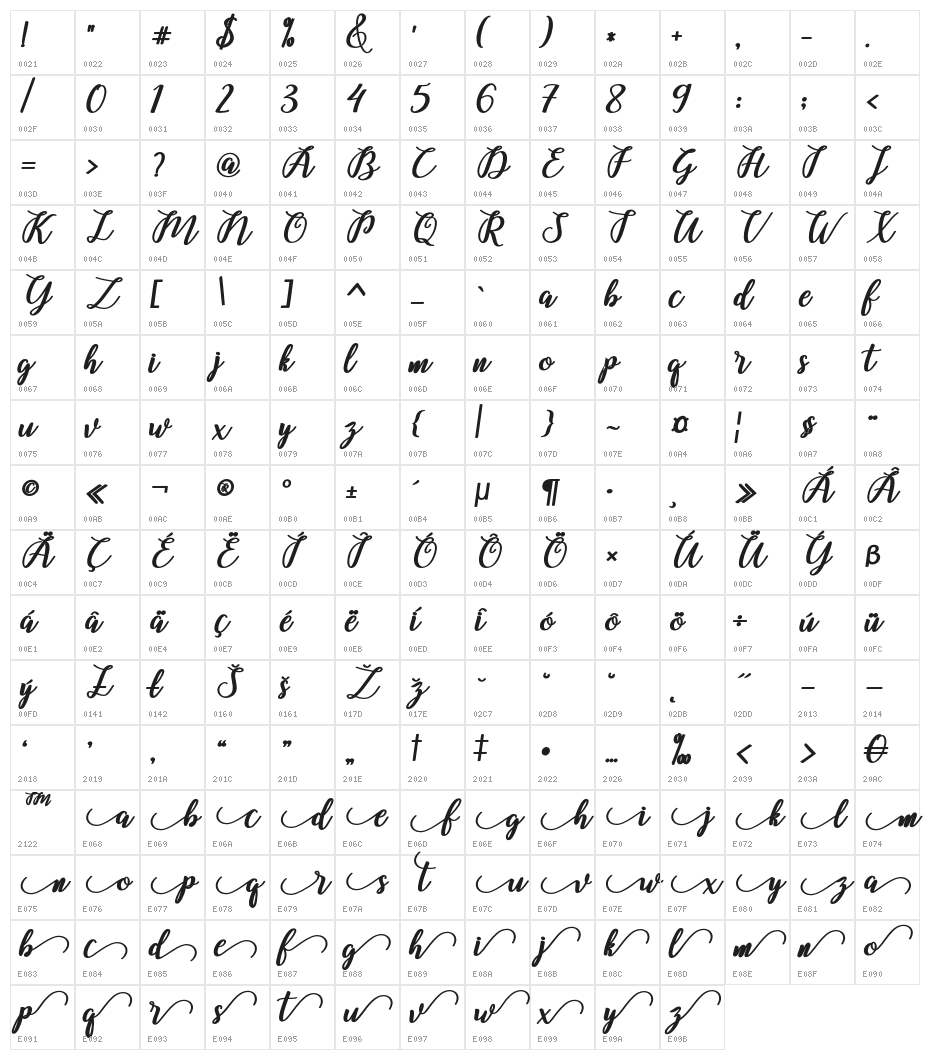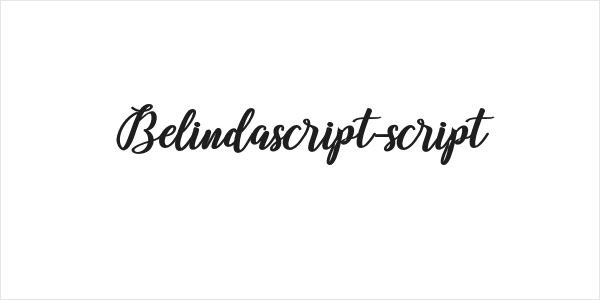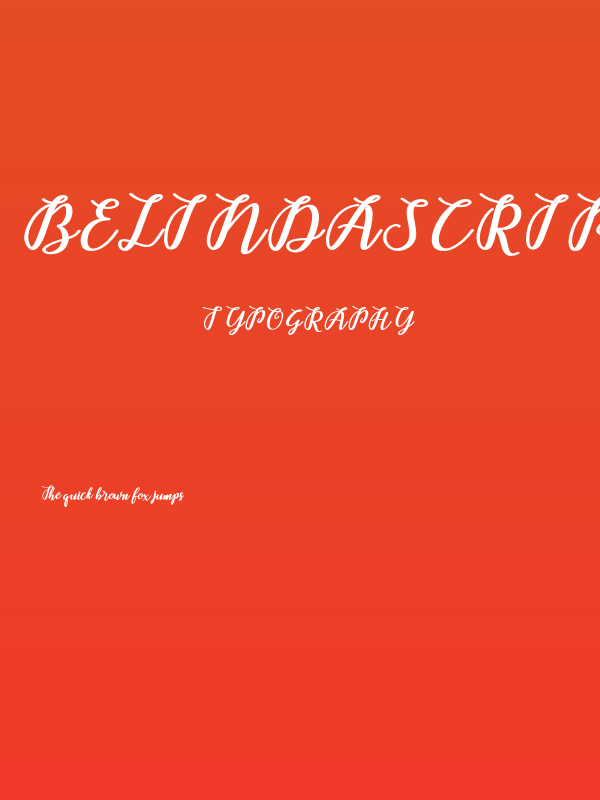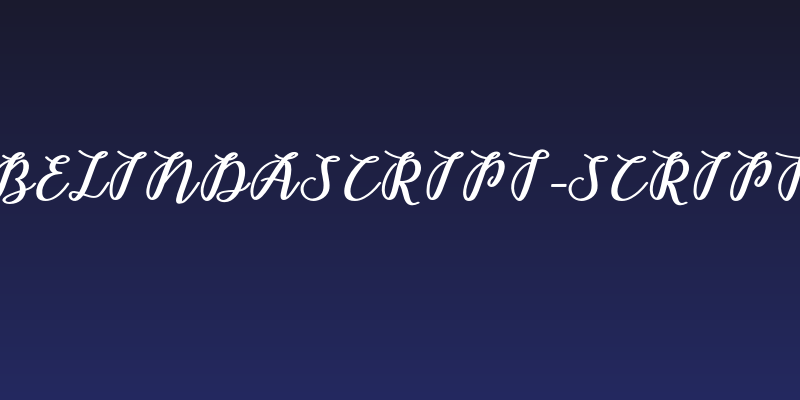
Belindascript-script Font
Belindascript-script Description
This font features a flowing, cursive style that mimics elegant handwriting. The uppercase letters are characterized by sweeping loops and flourishes, giving them a sophisticated and graceful appearance. The lowercase letters maintain a consistent fluidity, with smooth connections between each character, enhancing the script's legibility. The numerals and special characters are crafted with the same attention to detail, ensuring a cohesive look across all elements. The overall design exudes a sense of charm and refinement, making it suitable for projects that require a touch of elegance.
| Proposed Projects | Ideal for wedding invitations, greeting cards, branding, and elegant packaging. |